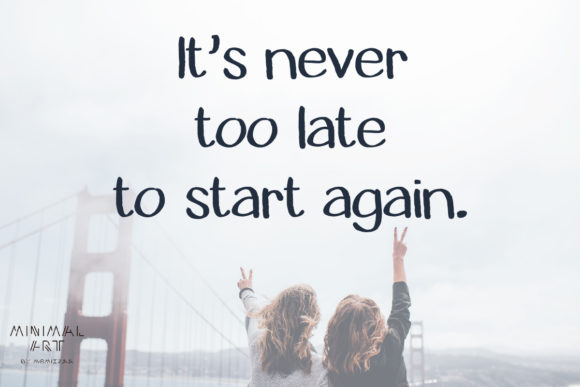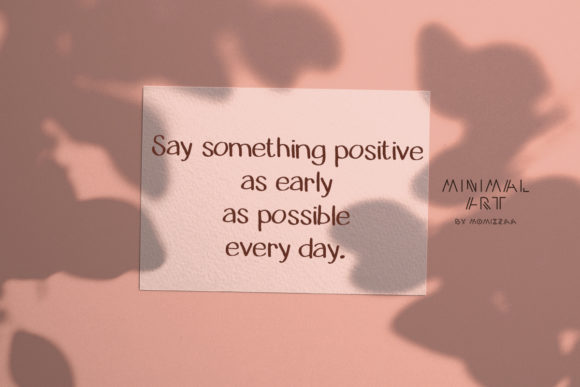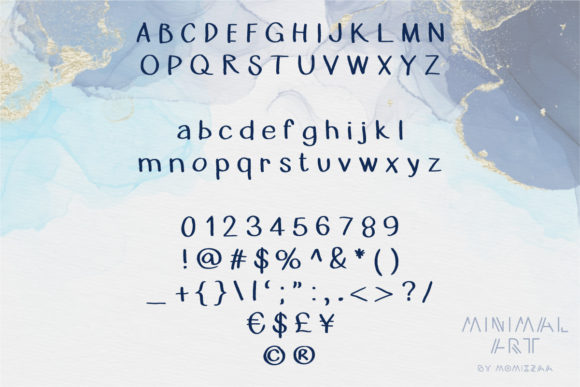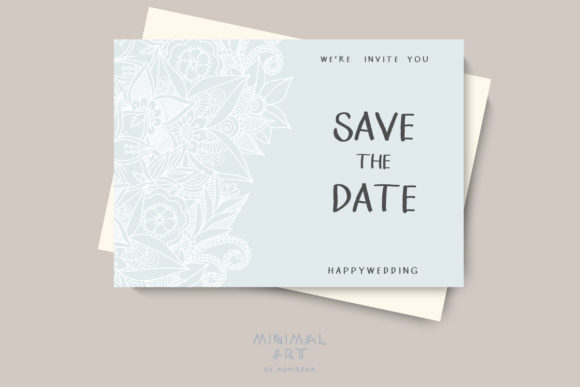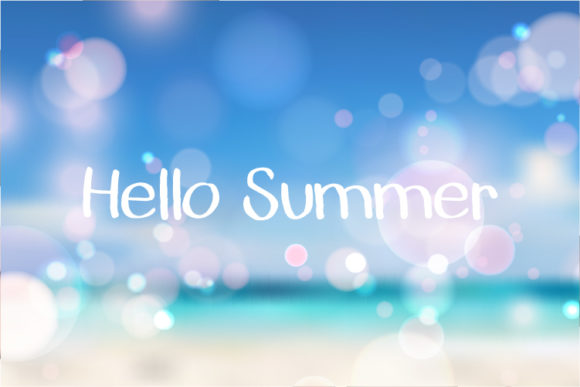
Cara Font
About Cara Font
Cara is a cute and simple handwritten font. Its casual charm makes it appear wonderfully down-to-earth, readable and, ultimately, incredibly versatile. Cara will turn any creative idea into a true piece of art!